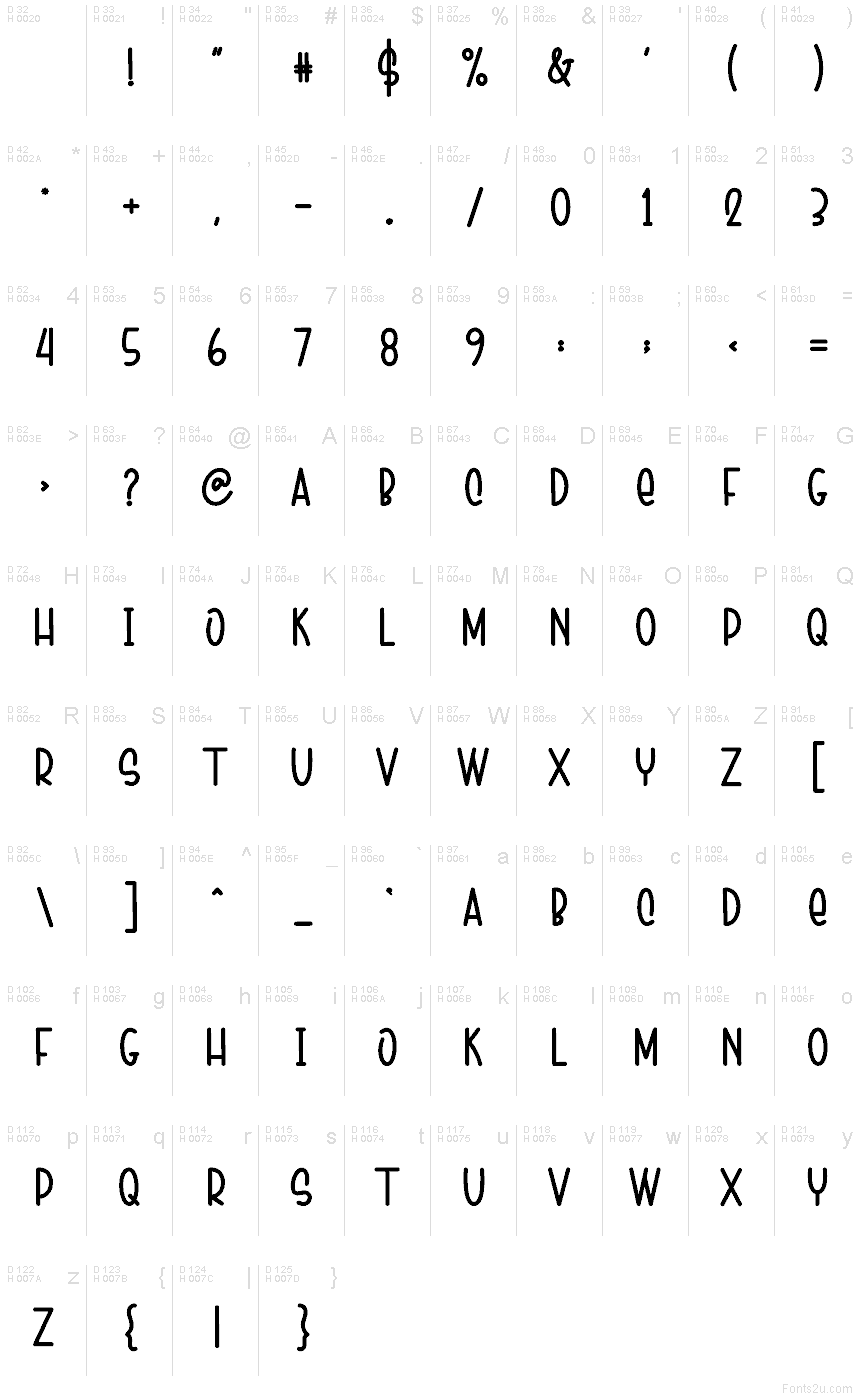
Gathering Point
Gathering Point font is a free handwritten font from Scratchones, delicately crafted to bring elegance to creative endeavors. The condensed letters of this font carry inspiration from retro designs with smooth letter curves. Nonetheless, like ordinary handwriting, Gathering Point remains casual and friendly delivering maximum legibility that can be appreciated by readers.
Brands or beginners can try their luck with Gathering Point in posters or signages before proceeding with it for further design projects. Greeting cards, invitation cards for weddings or other ceremonies, packaging boxes, magazine headlines and covers are just a few examples you may consider.